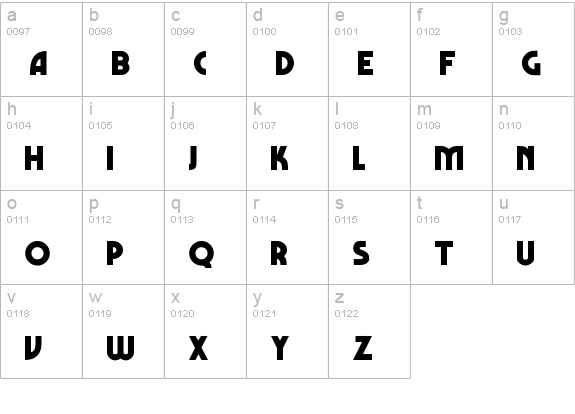
Marbold Normal Font Details
Marbold Normal is the standard, neutral variant in the Marbold typeface family \xE2\x80\x94 well suited to general body text, paragraphs, and standard typographic work.
Marbold Normal is a versatile and elegant font that exudes a classic and timeless appeal. With its clean lines and balanced proportions, this typeface is perfect for a wide range of design projects, from branding to editorial design. The sleek and modern look of Marbold Normal makes it a popular choice for both digital and print applications.